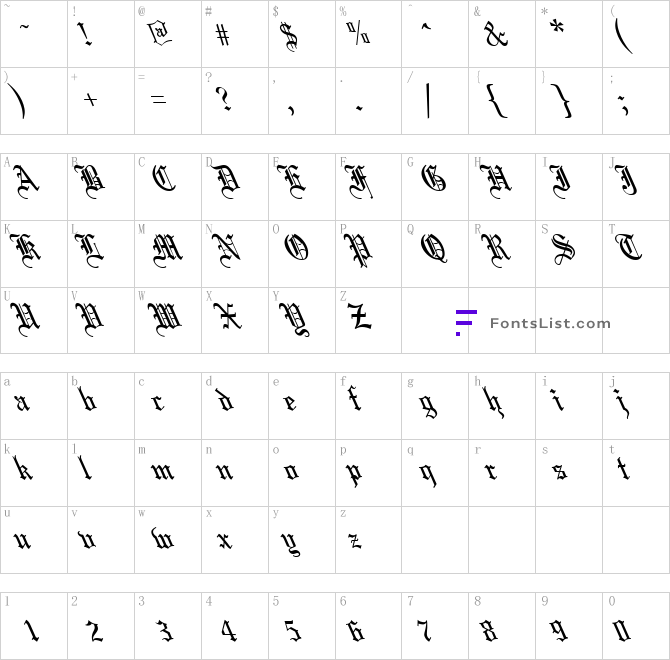
- Font Name:Captive Angel 1
Captive-Angel-1.ttf is a very beautiful artistic font, Captive-Angel-1.ttf is widely used in the design and printing of various books and pictures,Captive-Angel-1.ttf has a strong visual impact,Captive-Angel-1.ttf is a commonly used font in newspapers, magazines and books, and is used in posters, e-commerce Poster design, store design, logo design, font design and other fields.Captive-Angel-1.